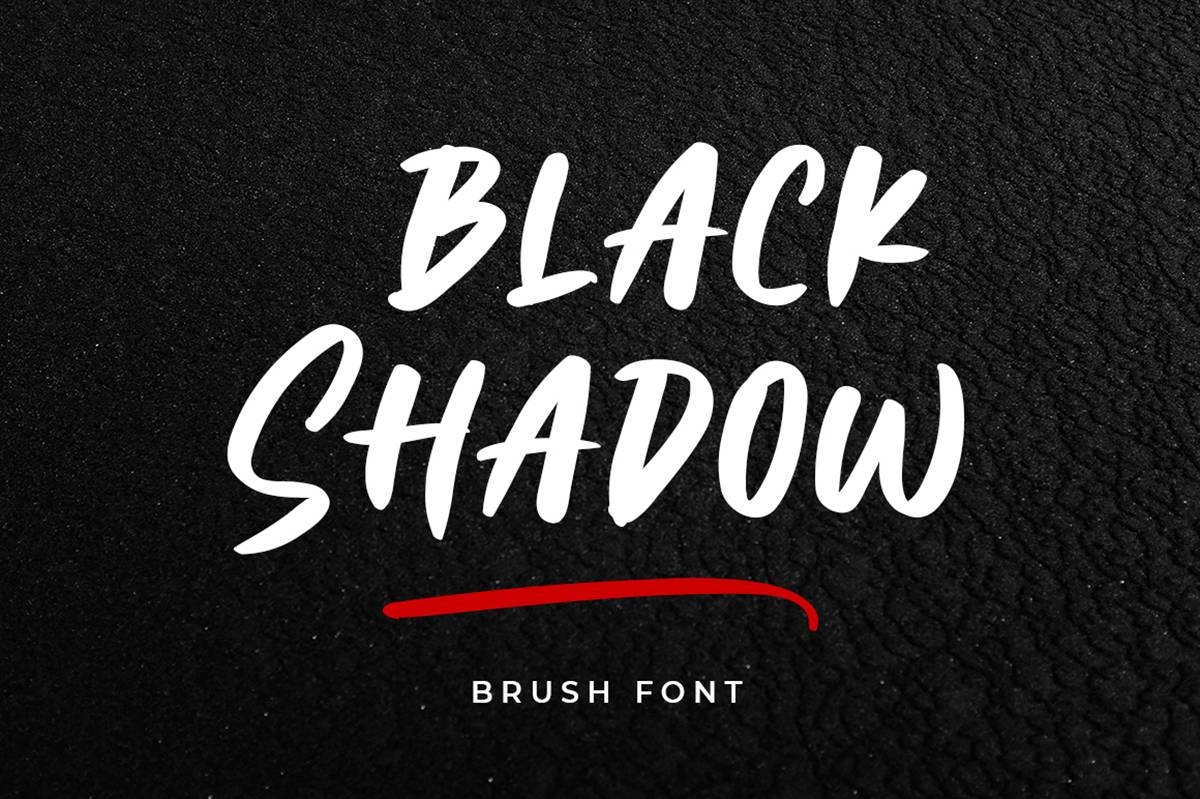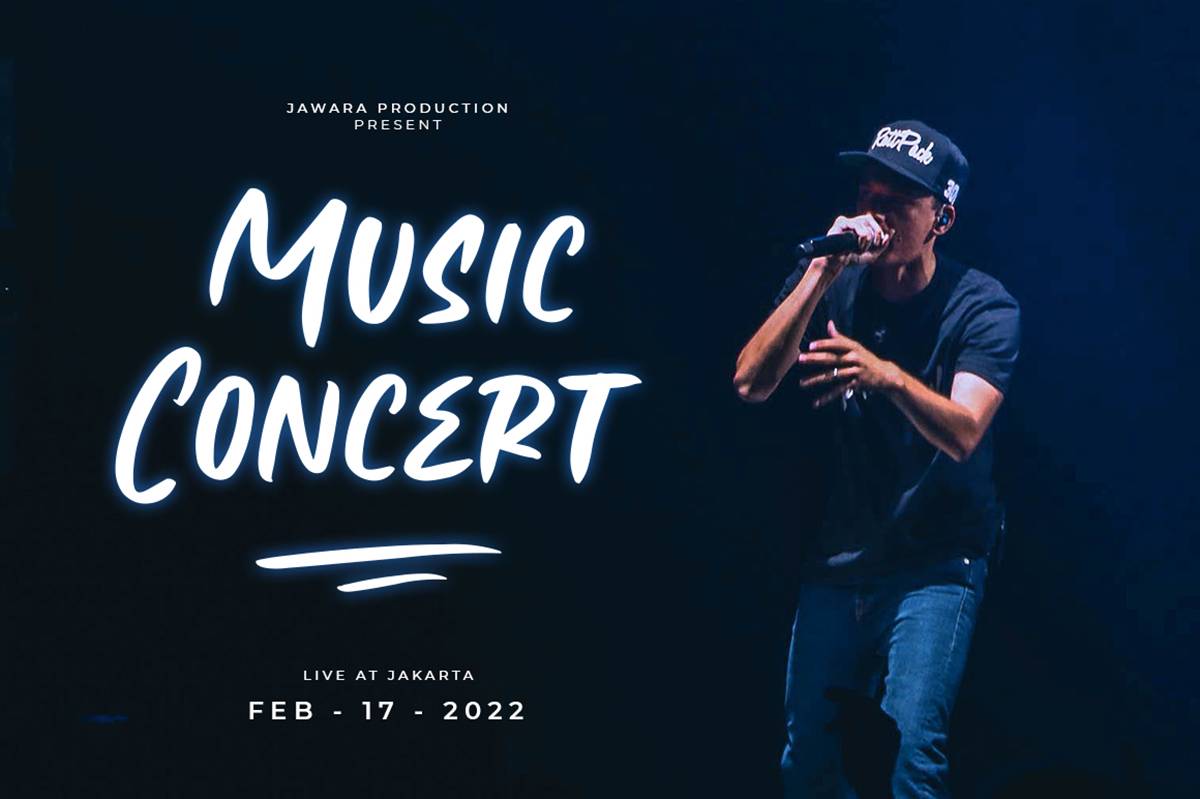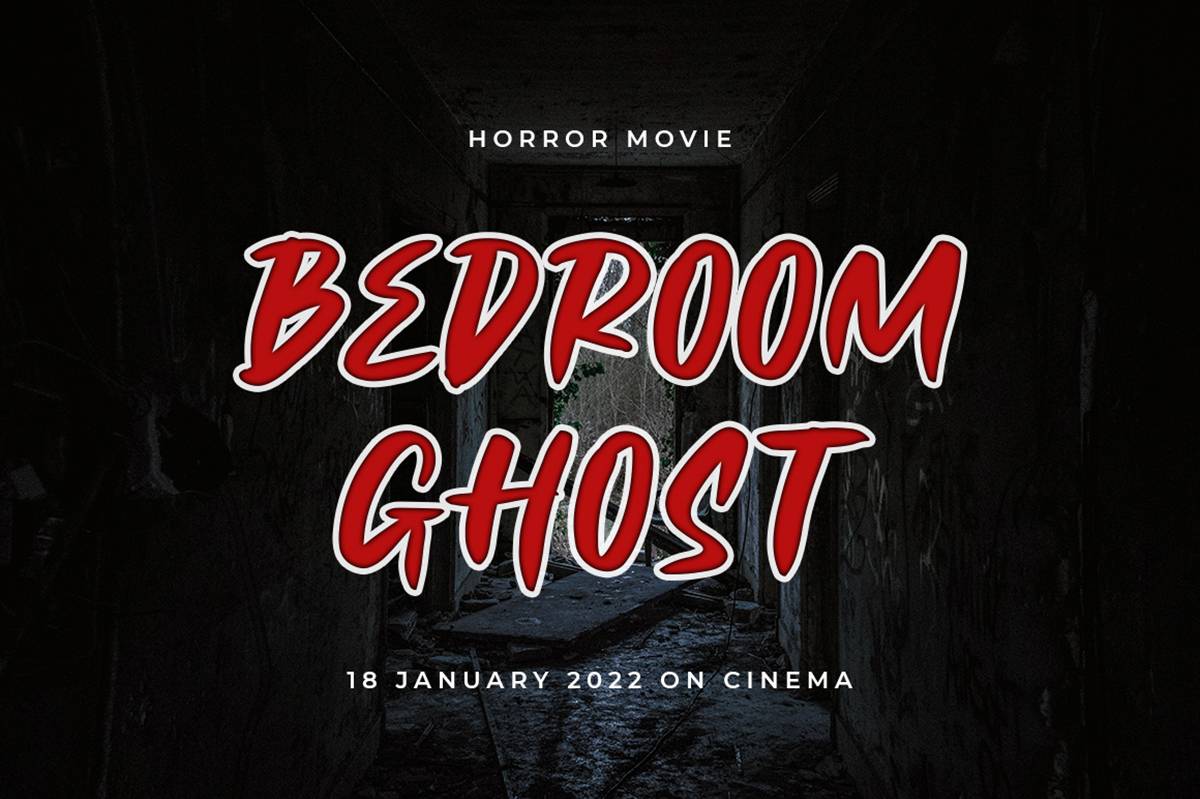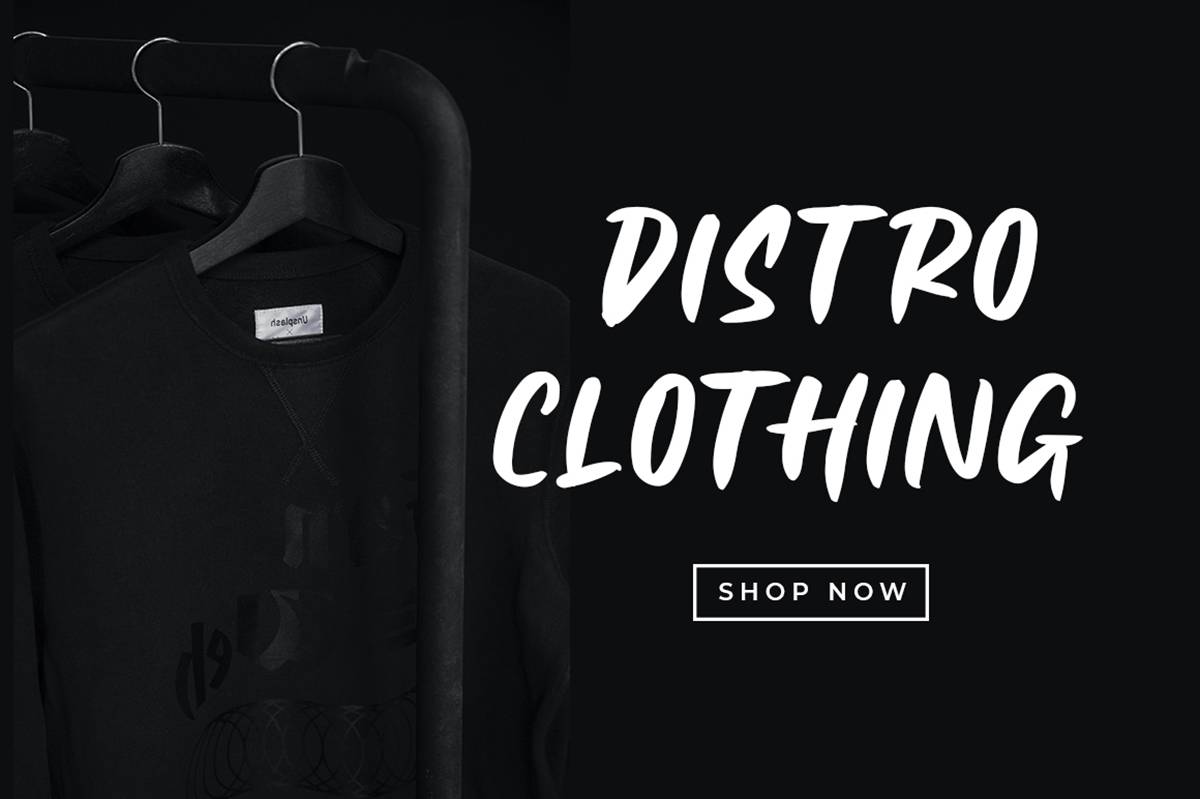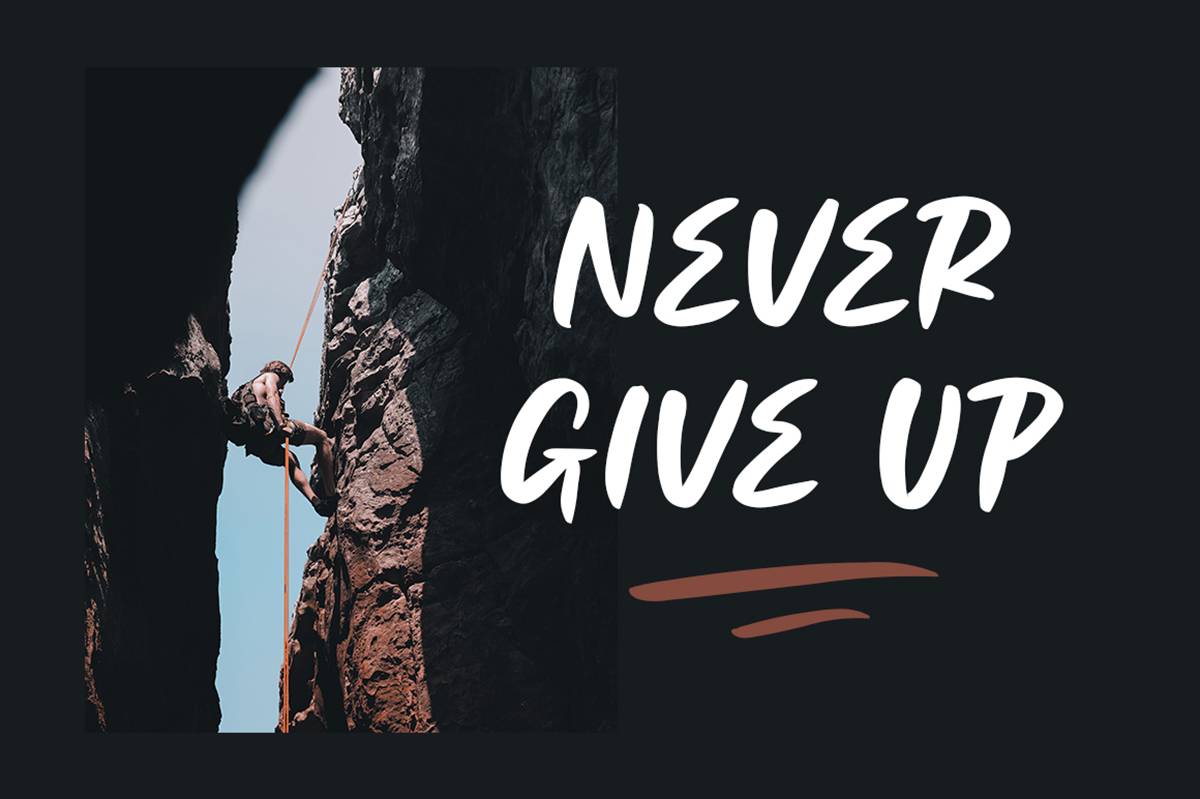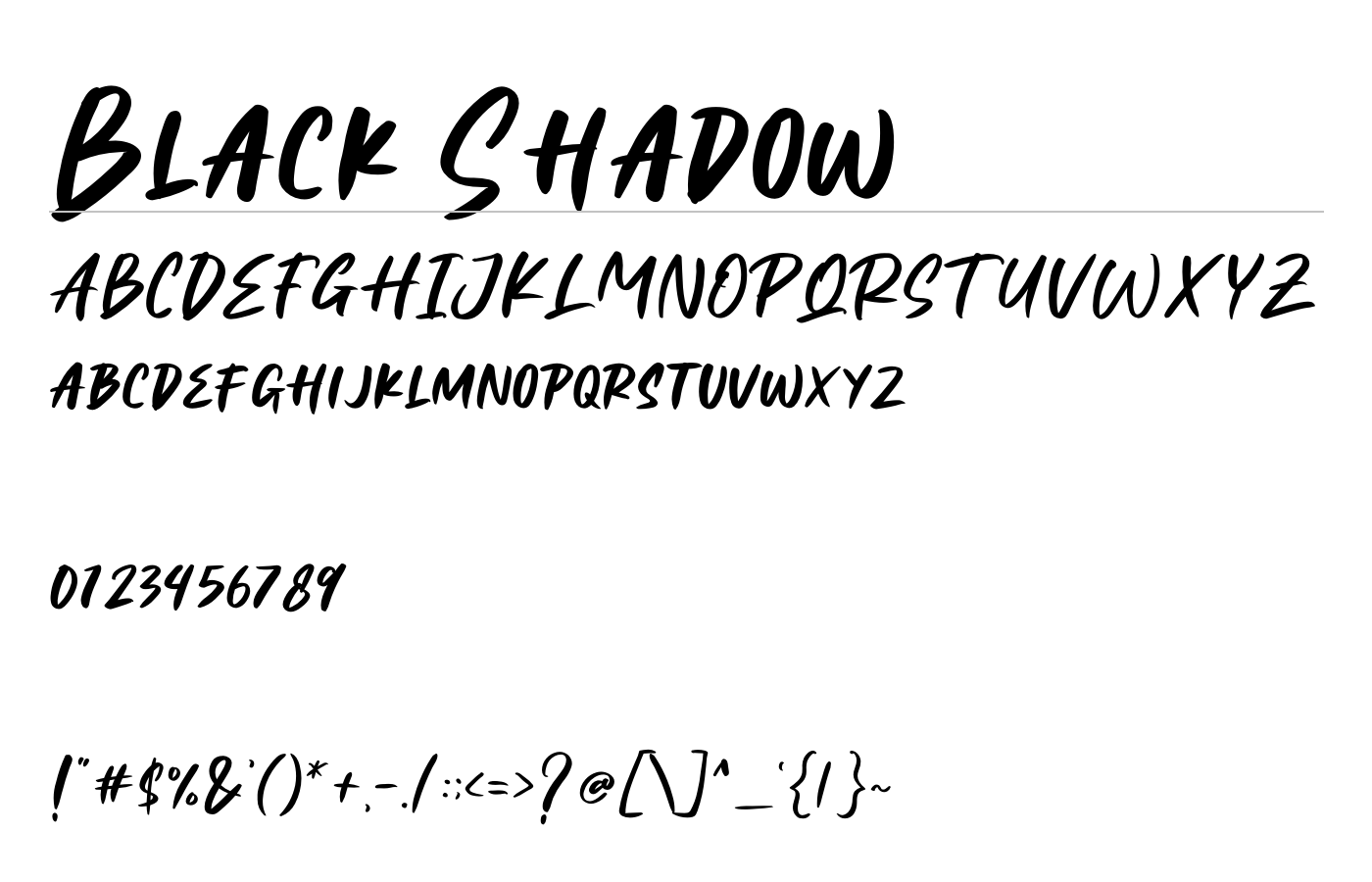
Black Shadow is a lively and bold handwritten script font that combines playful energy with clear readability. Its dynamic strokes and slightly uneven letterforms give it a casual, artistic vibe perfect for eye-catching headlines, creative branding, and youthful packaging. This font works well where a personal, friendly, yet strong voice is needed to engage and stand out.
Black Shadow Font
About Black Shadow Font
| Font family | Black Shadow Font |